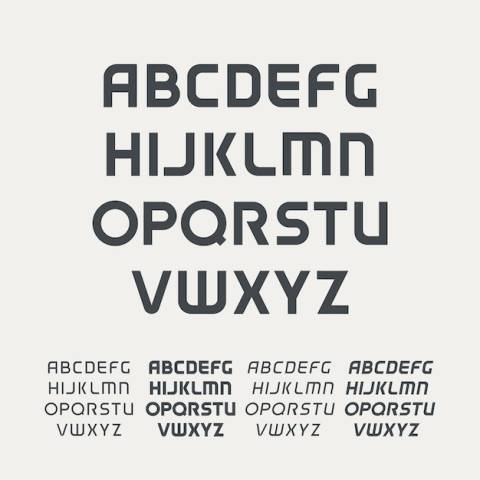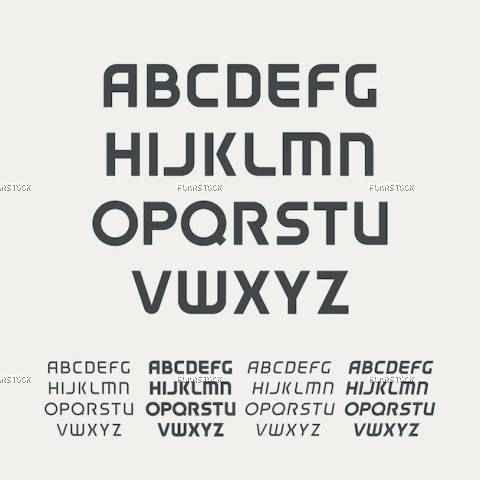
Sport uppercase alphabet futuristic technology font modern monogram template minimalistic vector design typeface logo template set the first letter of the title